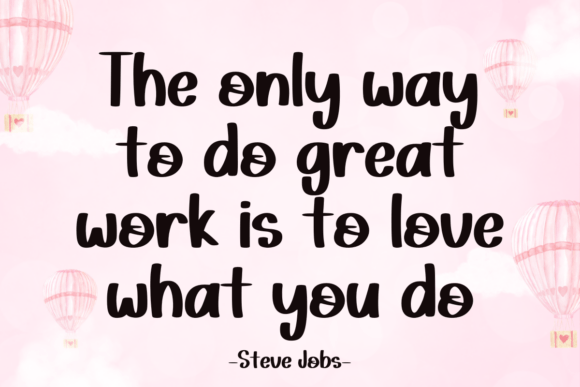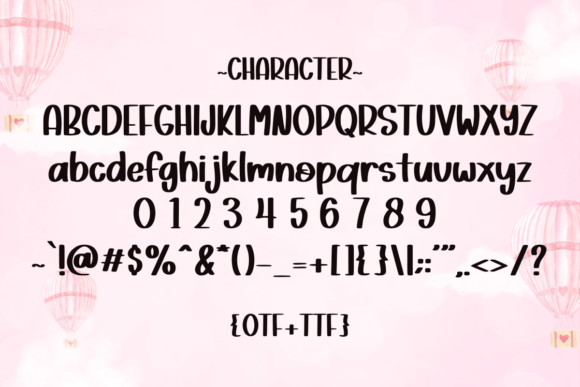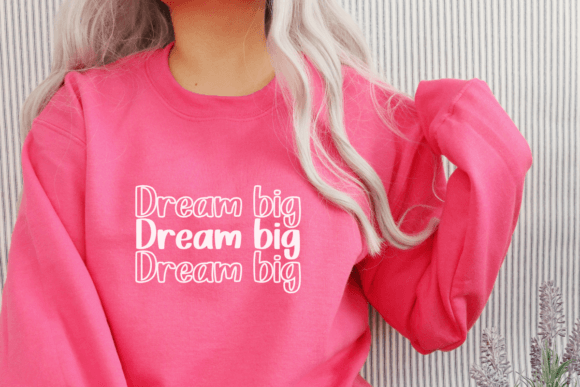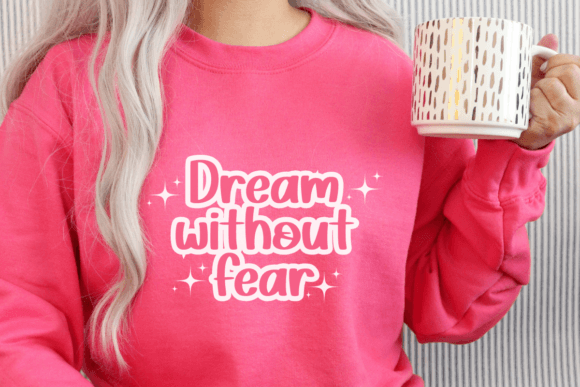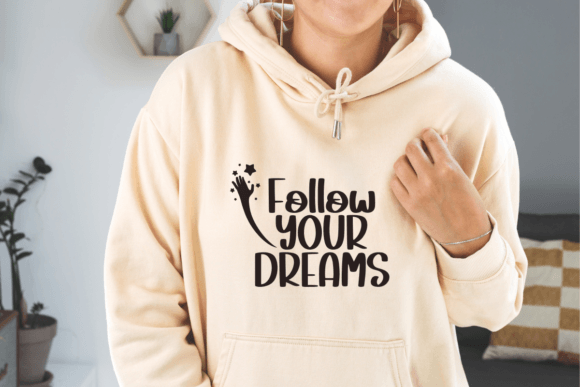
Introduction to Dream Shared Font
Dream Shared is a cheerful and playful sans serif font with a charming, natural style.
Its cute and fun design makes it perfect for Valentine’s Day projects, like greeting cards, necklaces, gifts, t-shirts, and more Beyond Valentine’s, it’s ideal for journals, KDP projects, notebooks, planners, teaching materials, Cricut and silhouette crafts, sublimation designs, keychains, women’s apparel, and countless other creative ideas.
Key Features of Dream Shared Font
Why Choose Dream Shared Font?